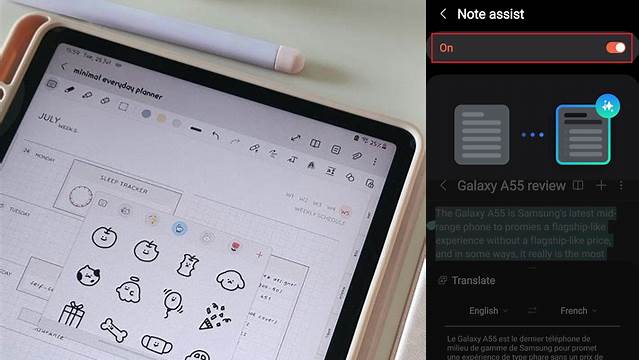
Custom Fonts In Samsung Notes: A Guide To Stylish Note-Taking
Are you looking to spice up your note-taking experience on your Samsung Galaxy device? Do you want to move beyond the standard fonts and infuse your notes with a touch of personality? Well, you're in the right place! Custom fonts in Samsung Notes can revolutionize how you organize your thoughts, brainstorm ideas, and simply make your notes more visually appealing. Let's dive into everything you need to know about customizing fonts in Samsung Notes and explore how you can transform your digital notebooks into dynamic canvases of creativity.
Why Use Custom Fonts in Samsung Notes?
Unleash Your Creativity with Custom Fonts
First off, guys, custom fonts in Samsung Notes aren't just about aesthetics. They're about expressing yourself! Think about it: you're staring at your notes all day, so why not make them enjoyable to look at? It's like choosing the perfect pen or highlighter, but in the digital realm. A unique font can instantly inject personality and character into your notes. Want to give your notes a vintage vibe? There's a font for that! Want something sleek and modern? Got you covered! The possibilities are endless, allowing you to tailor your note-taking experience to match your style, mood, or project. Plus, using custom fonts can boost your creativity by making the whole note-taking process more engaging and fun.
Beyond personal flair, custom fonts can also serve practical purposes. For example, using a specific font for headings and another for body text can significantly improve the readability and organization of your notes. This visual distinction makes it easier to scan through your notes, identify key information, and understand the structure of your ideas. This level of customization is crucial when dealing with extensive notes or complex projects where clear organization is paramount. Think about using a bold, eye-catching font for important dates, deadlines, or action items to ensure they grab your attention immediately. Or try italicizing specific words or phrases for emphasis, which is perfect for highlighting crucial details. Essentially, custom fonts aren't just about the look; they're about making your notes work smarter, not harder.
Enhancing Readability and Organization
Imagine you're a student taking notes in class, or a professional compiling project reports. Standard fonts, while functional, can sometimes feel bland and uniform, potentially causing eye strain and hindering information retention. Custom fonts offer a refreshing alternative by injecting visual interest and breaking the monotony. This makes your notes more engaging, and your mind stays more focused on the content. Different fonts have different readability levels. Some are designed to be easily readable in large blocks of text, while others are great for headings or short bursts of information. Experimenting with different fonts allows you to find the ones that best suit your needs and preferences. The key is to find a balance between aesthetics and functionality. You don't want to choose a font that is so quirky it becomes difficult to read, and you don't want a font that is so boring that it fails to capture your attention. Find the sweet spot and enjoy the ride.
By utilizing custom fonts, you can significantly enhance the organization of your notes. Fonts have different weights, sizes, and styles, and the strategic use of these characteristics will help create a clear hierarchy within your notes. Use different font sizes to distinguish headings, subheadings, and body text. You can also create visual cues that make it easier to scan through your notes and find what you are looking for quickly. For example, a bold, large font might be used for the main title of your notes, while a slightly smaller, italicized font could be used for subheadings within each section. This visual breakdown is especially beneficial if you are dealing with a lot of information or if you need to quickly review your notes. It’s like creating a visual roadmap for your notes, leading you directly to the information you need.
Personalization and Style
Customizing fonts in Samsung Notes lets you establish a unique brand for your notes, whether for personal use or professional projects. If you’re a student, you can create a cohesive look for all your class notes by using a specific font for each subject. As a professional, you can integrate custom fonts into your project reports and presentations to enhance the overall visual appeal and maintain brand consistency. In the creative fields, designers and artists often use custom fonts to convey a specific mood or aesthetic in their projects. For instance, a handwritten-style font can add a personal touch to your notes, while a futuristic font could make your notes look sleek and modern. Regardless of your field, custom fonts let you create a note-taking system that reflects your style and personality.
Furthermore, using custom fonts is a great way to separate yourself from the crowd. In a world where everyone is using the same standard fonts, choosing custom fonts will make your notes stand out. Whether you’re creating a portfolio, a presentation, or even a simple shopping list, a unique font can make your document more memorable and eye-catching. It’s a subtle but effective way to add your unique signature to everything you do. The font choice is very important. Think of it as another tool in your creative toolkit, like color palettes or design elements. With a few simple steps, you can transform your notes from bland to amazing, making you more creative.
How to Add Custom Fonts to Samsung Notes
Utilizing the Samsung Galaxy Store
Alright, so now you're probably asking, how do I actually add custom fonts to Samsung Notes? Well, guys, the first and easiest way is through the Samsung Galaxy Store. Samsung has a dedicated store that offers a wide variety of fonts specifically designed for their devices. Here's how you can get started:
- Open the Galaxy Store: Tap the Galaxy Store icon on your Samsung device's home screen or app drawer. It looks like a shopping bag icon. Keep in mind that the Galaxy Store might be pre-installed or you may need to download it from Google Play Store.
- Navigate to Fonts: Within the Galaxy Store, you'll need to find the fonts section. Usually, you can find this in the 'Themes' or 'Personalization' section. If you can't find it, use the search bar and type 'Fonts.'
- Browse and Select: Now for the fun part! Browse the available fonts. The store typically has a mix of free and paid fonts. Click on the font that catches your eye to see a preview and more details. Be aware that some fonts require payment.
- Download and Apply: Once you've chosen a font, tap the download button. The font will download and install automatically. You will usually be prompted to apply the font after it has been downloaded. Go to the 'Settings' on your device, then find 'Display', then find 'Font style and size' to select the installed font. This will apply the font to all your Samsung apps that support font customization, including Samsung Notes.
Conclusion: Elevate Your Note-Taking with Custom Fonts
There you have it, guys! Custom fonts in Samsung Notes are more than just a cosmetic upgrade; they're a powerful tool for enhancing your note-taking experience. From boosting creativity and improving organization to personalizing your digital notebooks, the right fonts can transform how you learn, work, and express yourself. Start experimenting with different fonts, find what works best for you, and enjoy the creative journey. The world of custom fonts is vast and varied, so explore, experiment, and have fun! Embrace the freedom to create notes that are as unique as you are. Happy note-taking!